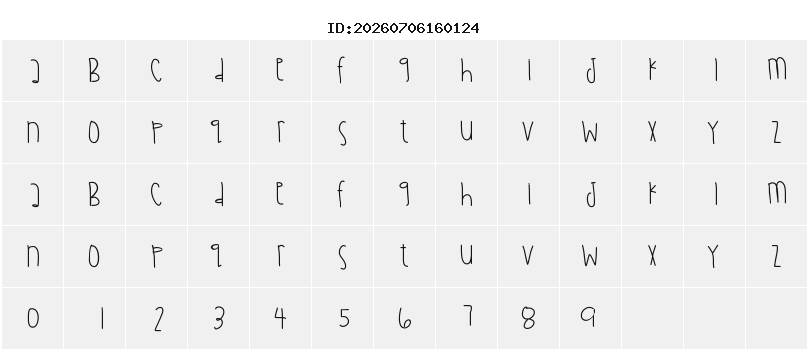
DiamondAwareness Preview
• Font Name: DiamondAwareness
• Full Font Name: DiamondAwareness
About DiamondAwareness.ttf
DiamondAwareness.ttf is a modern, elegant sans-serif font designed for ultimate readability and visual harmony. Perfect for branding, headlines, web design, and print materials.